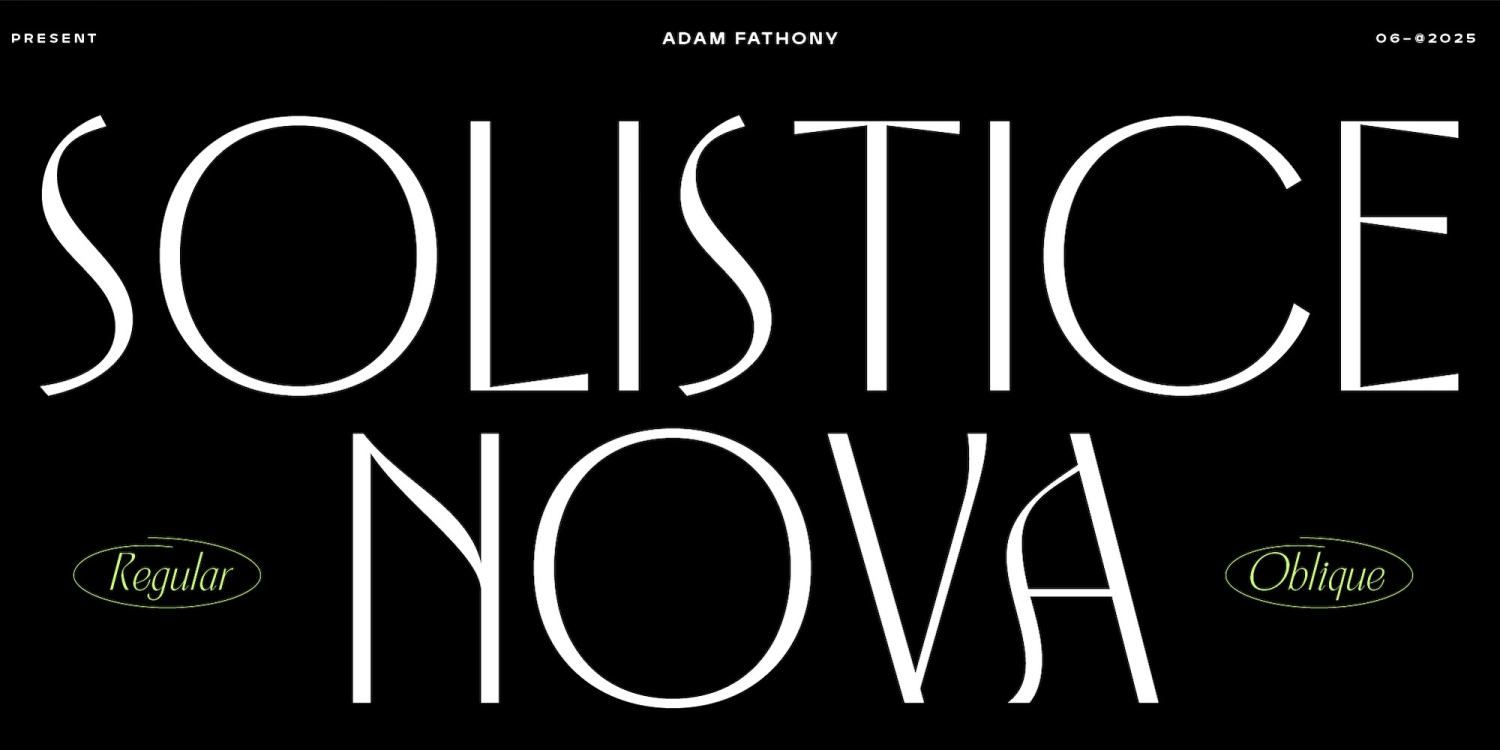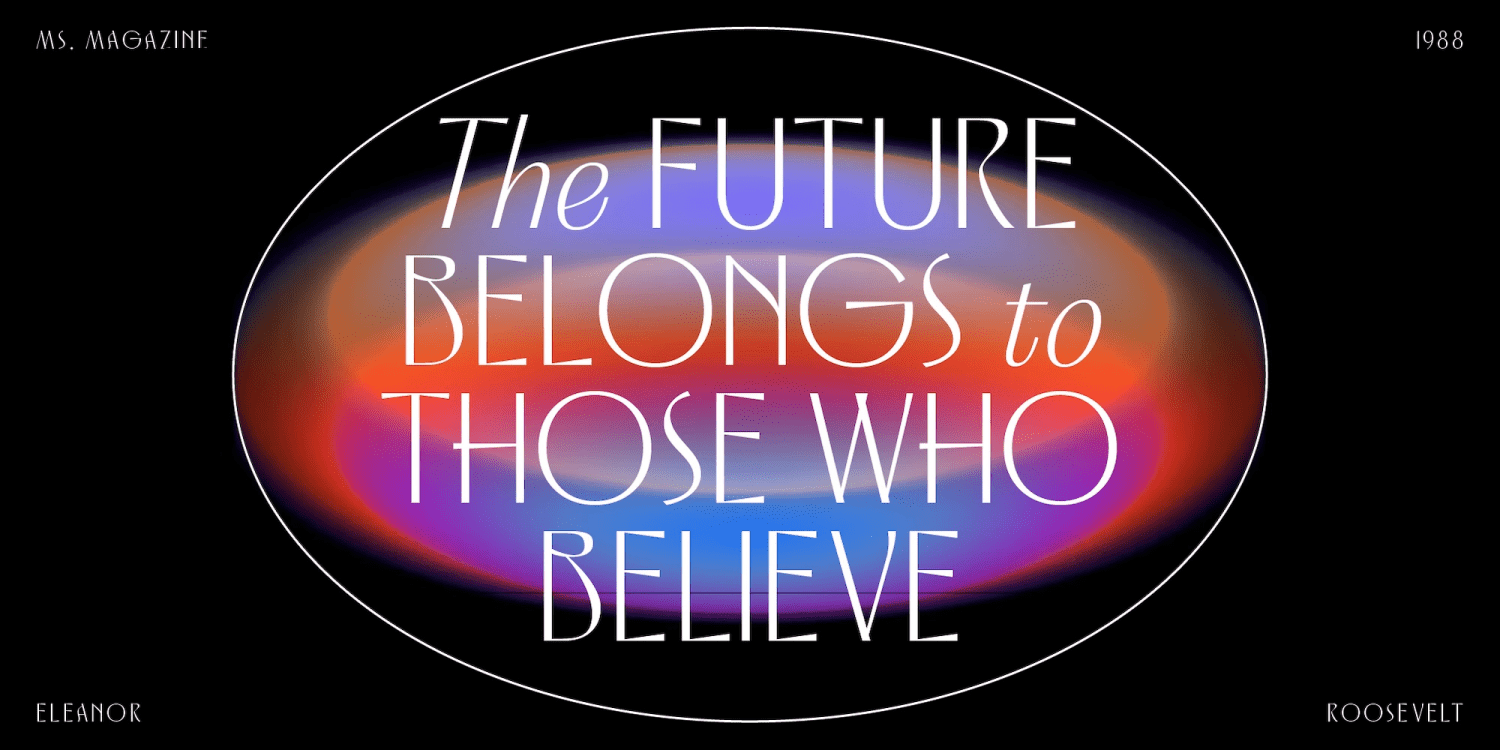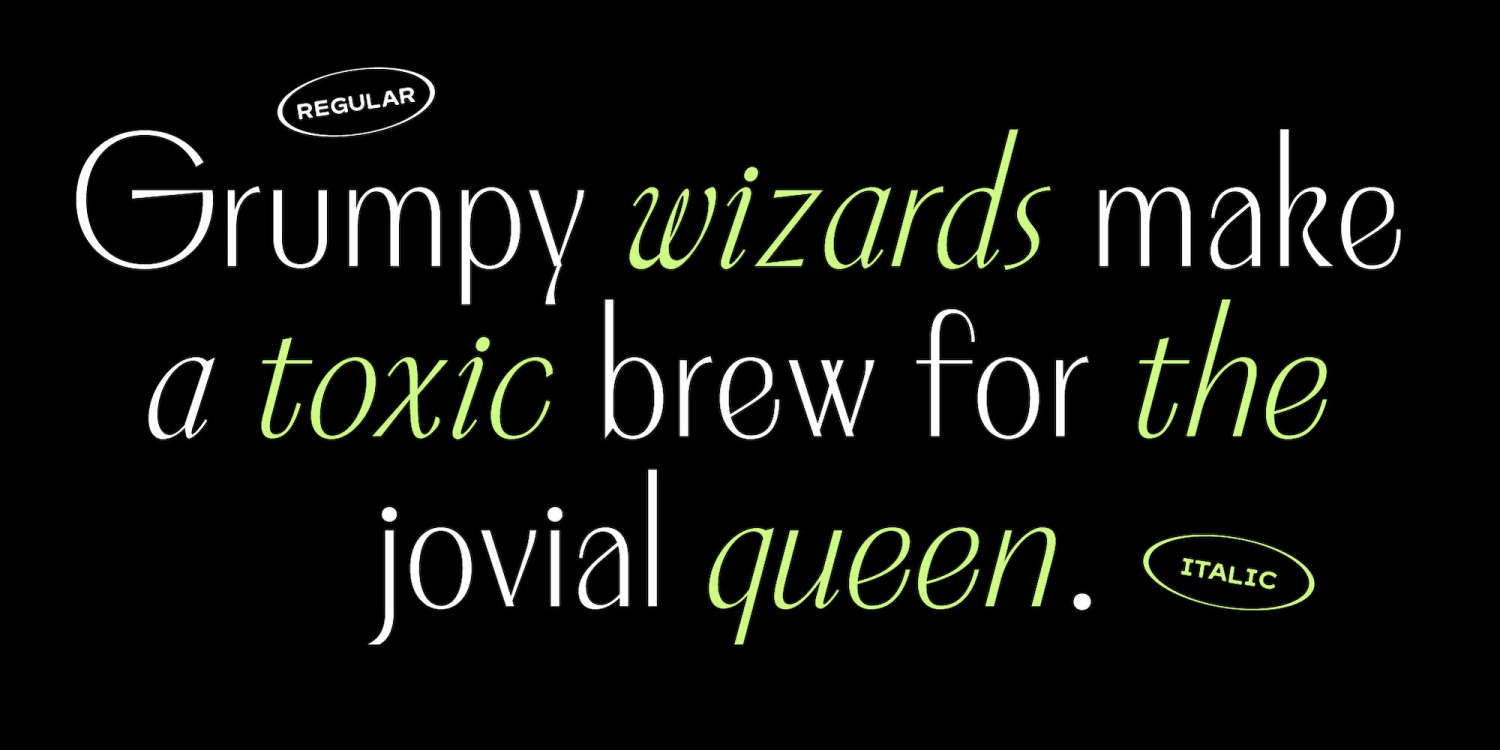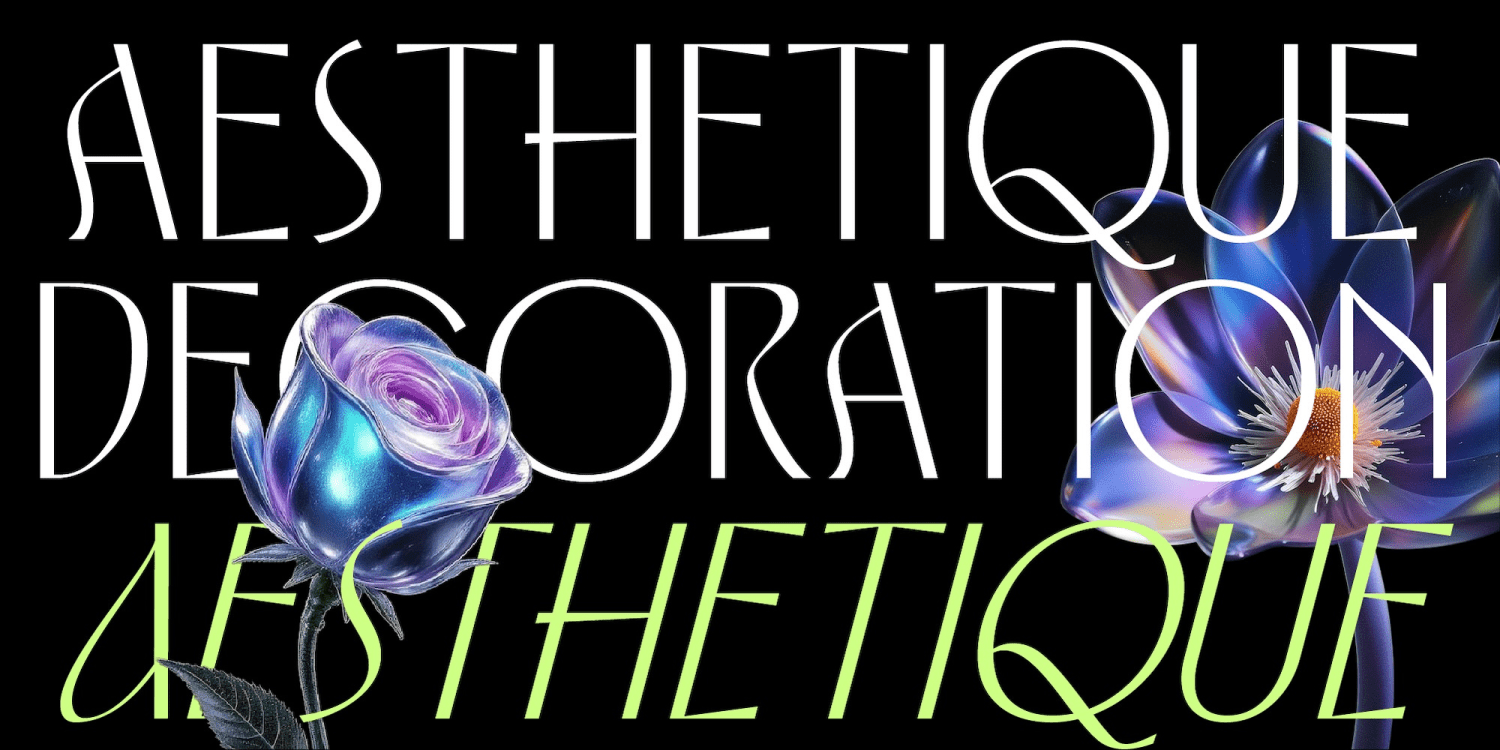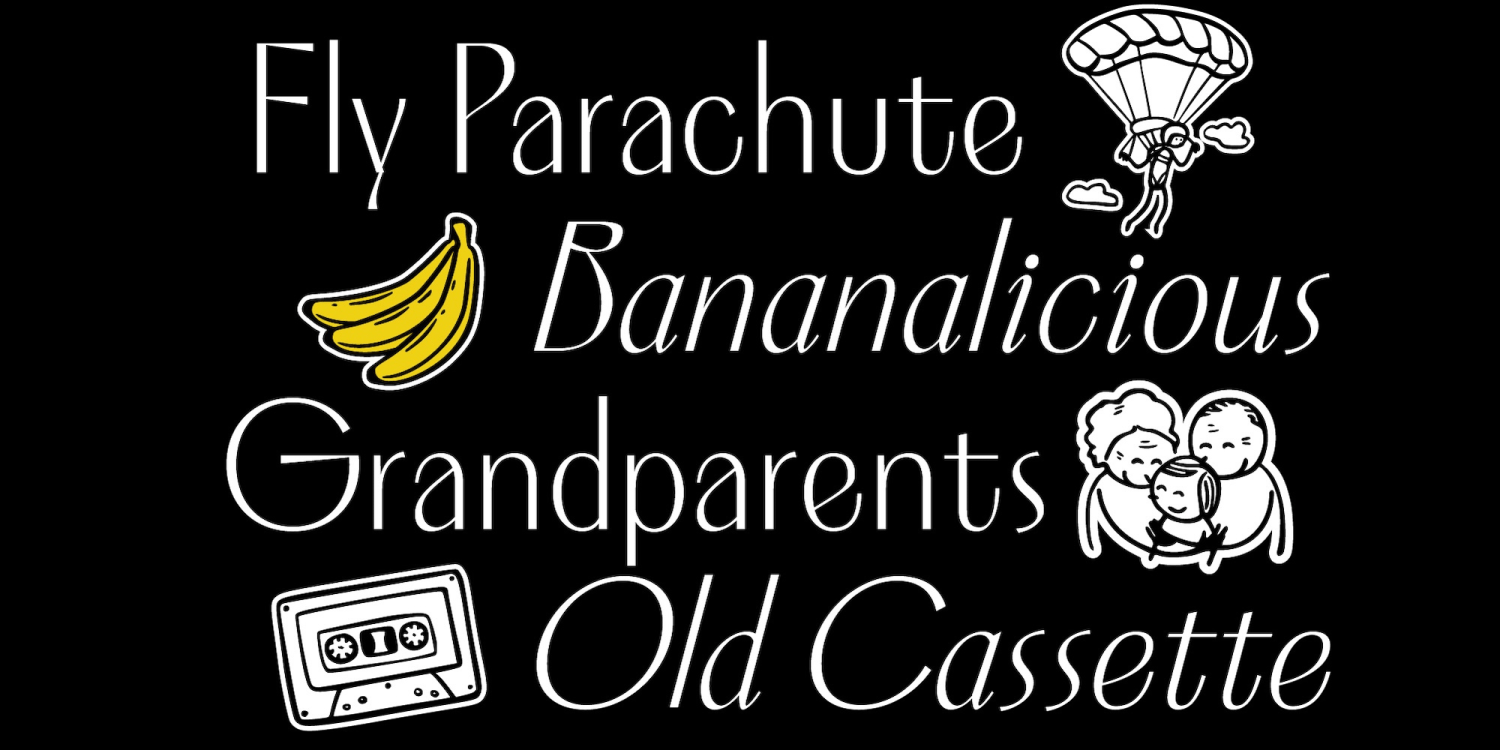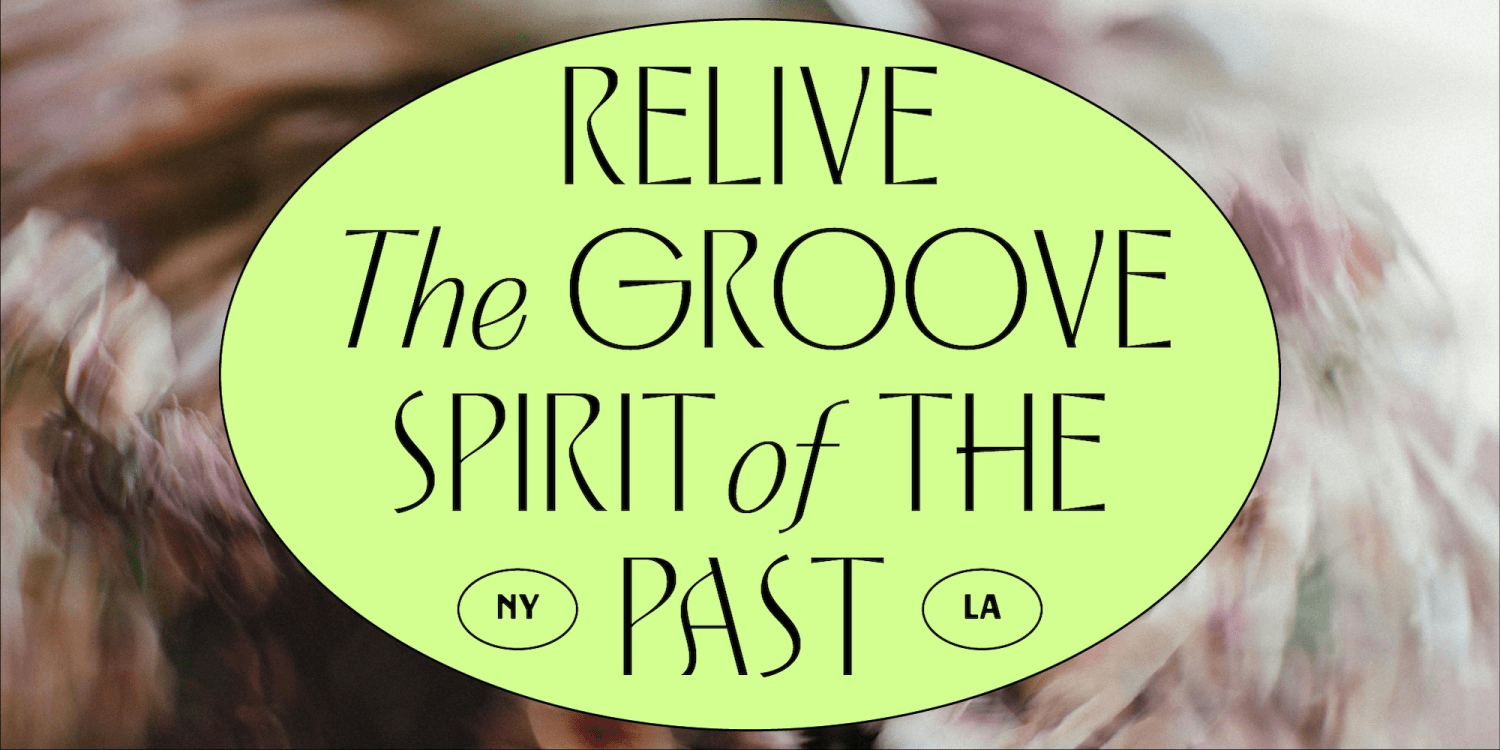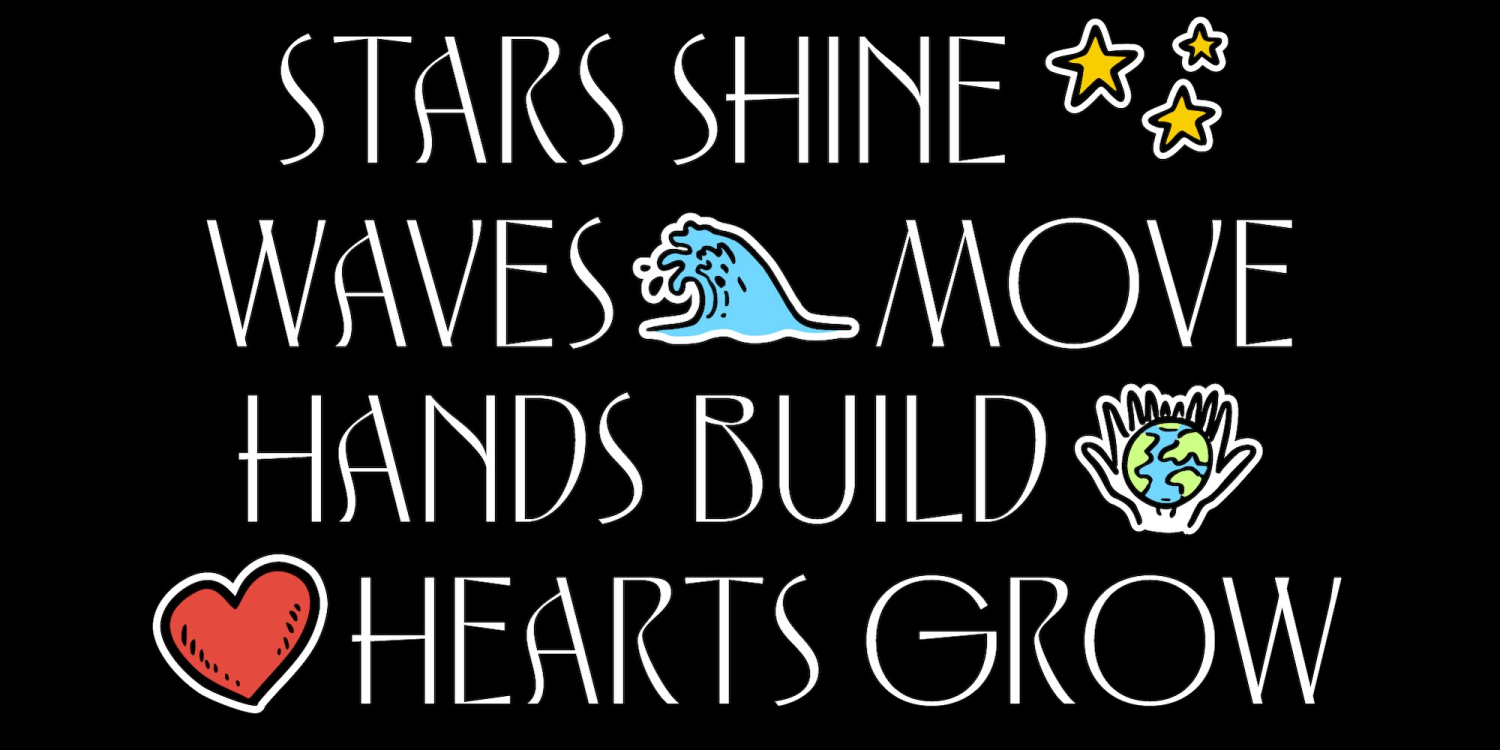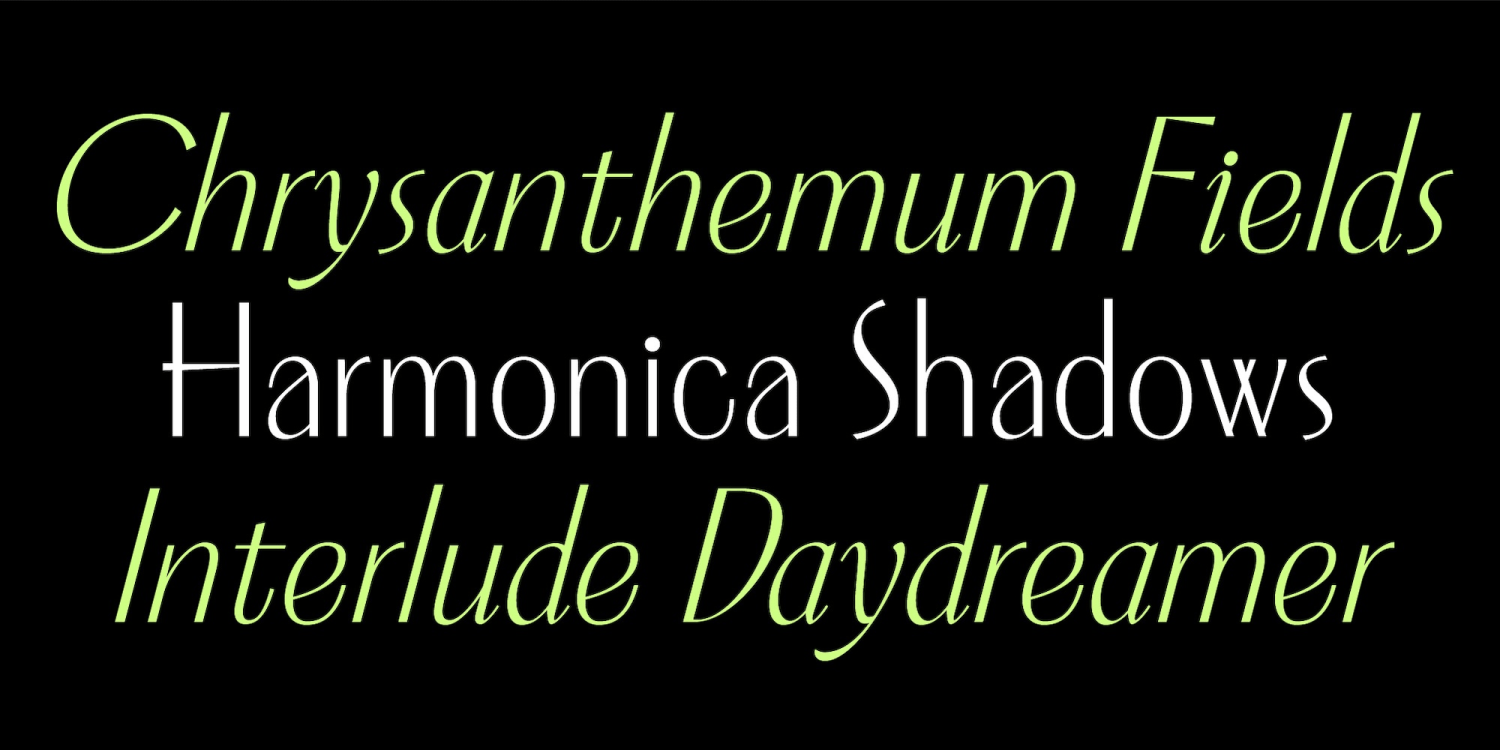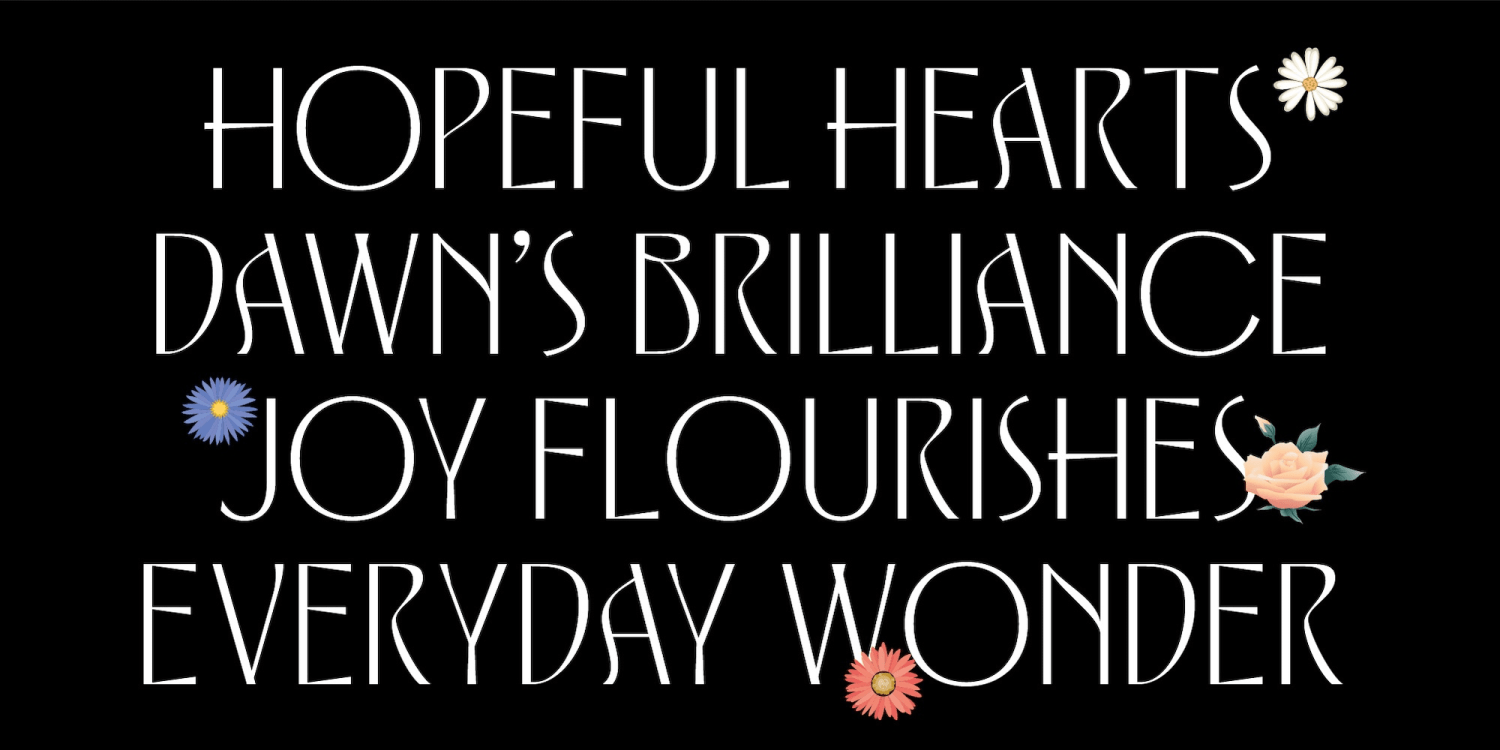
Solistice Nova
Introducing Solstice Nova—a captivating duo font featuring both Regular and Oblique styles.
Crafted to inspire, this typeface blends refined elegance with expressive flair, making it the perfect choice for branding, creative projects, posters, and more.
Solstice Nova supports multiple languages, ensuring versatility for designers worldwide. With its balanced geometry and unique personality, Solstice Nova brings a modern yet whimsical touch to any design.